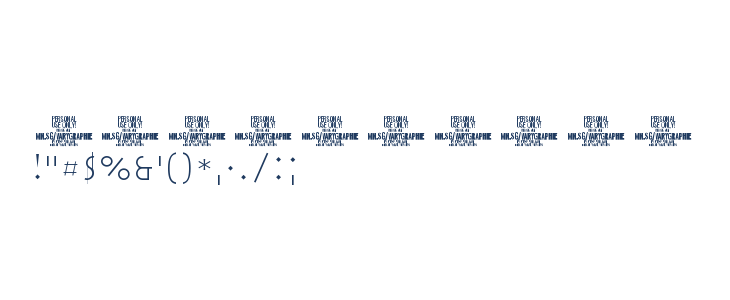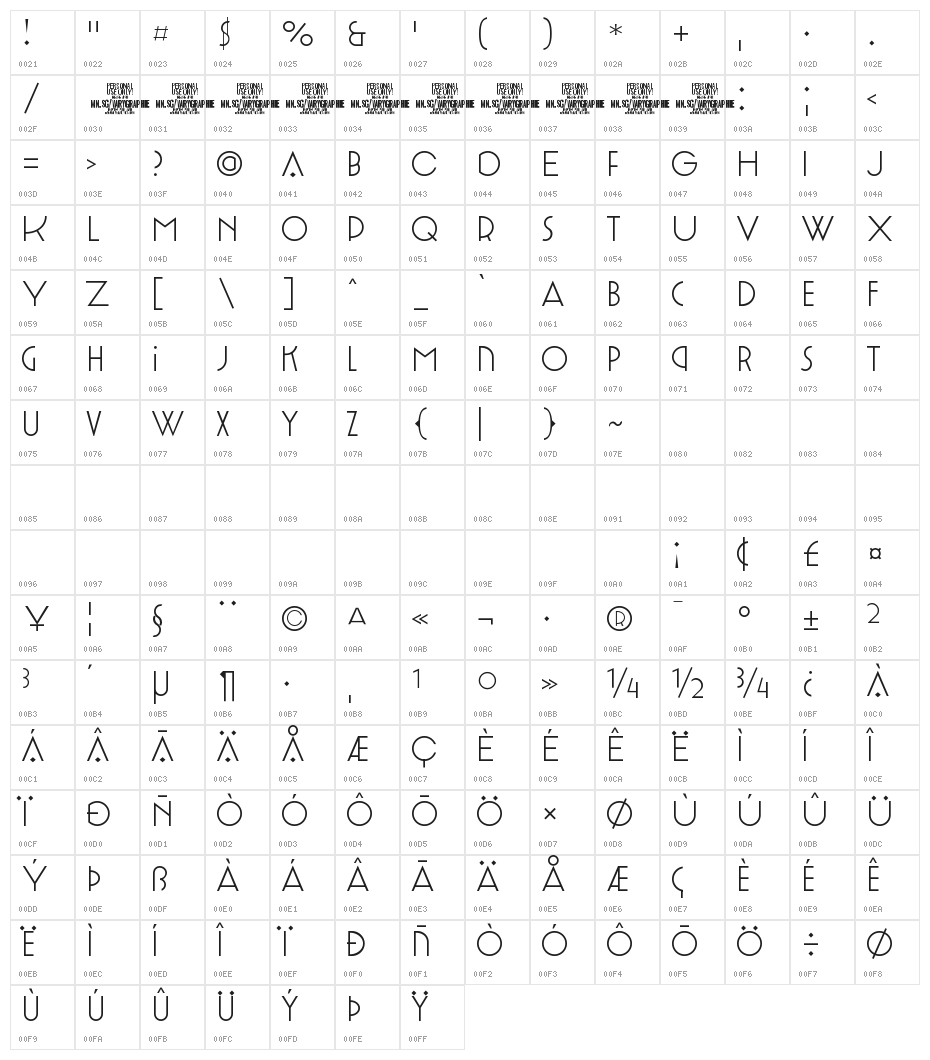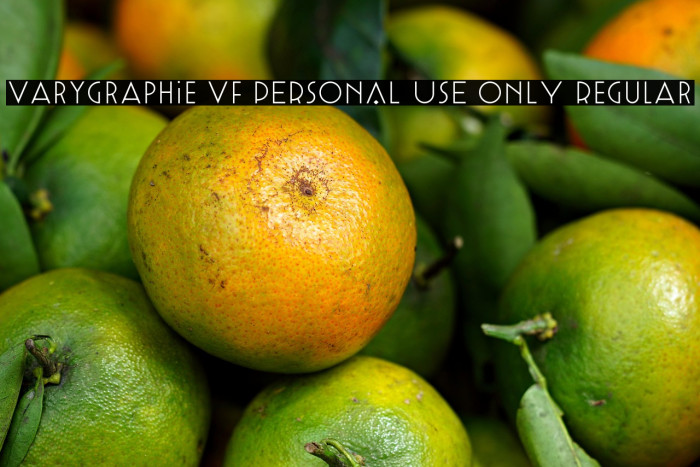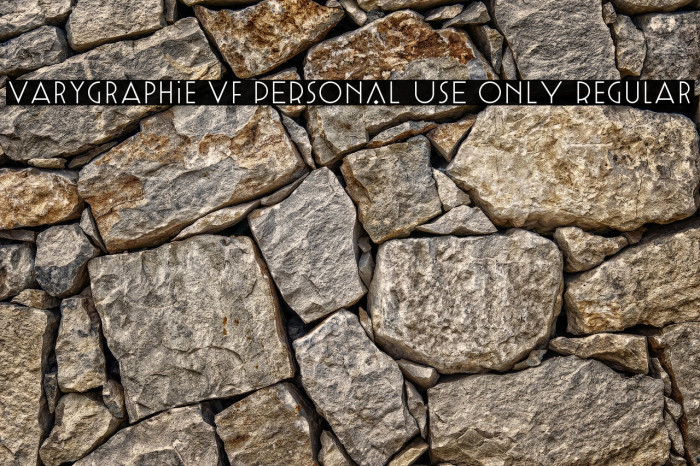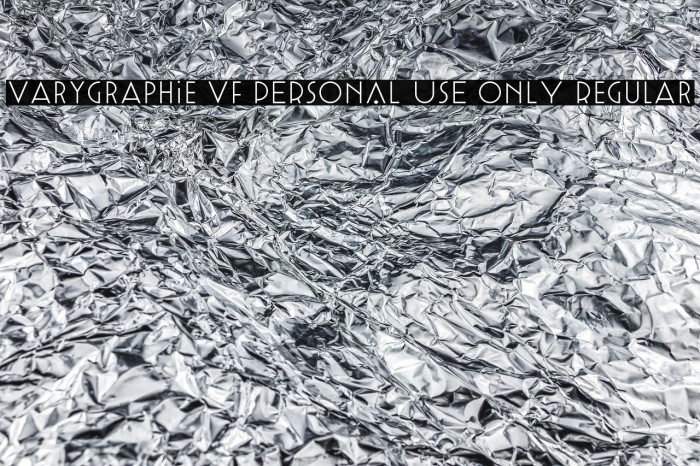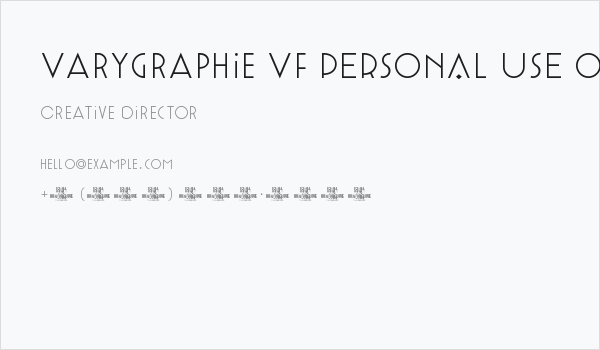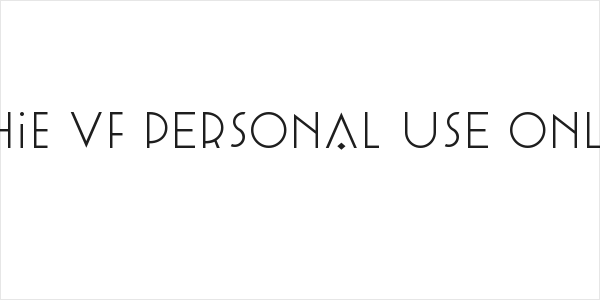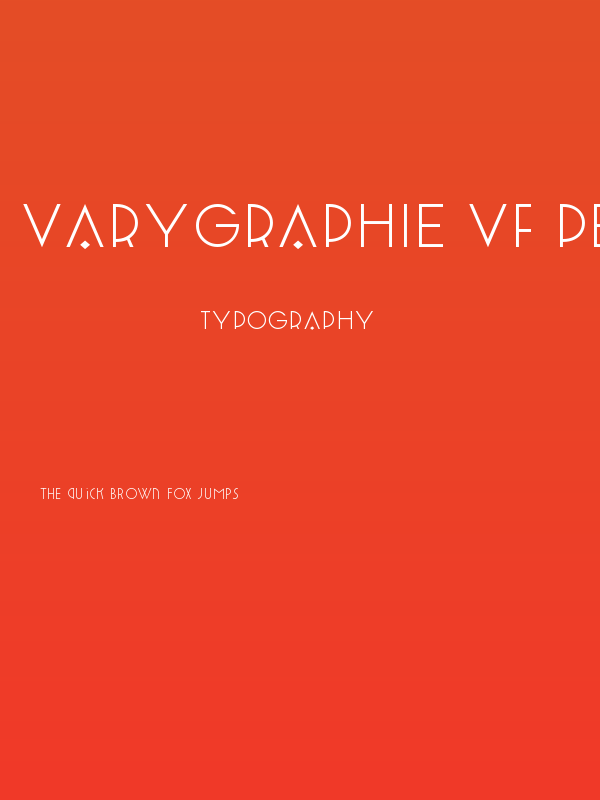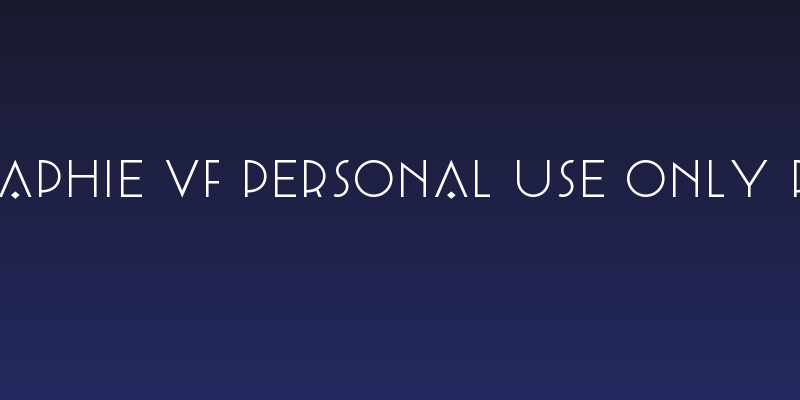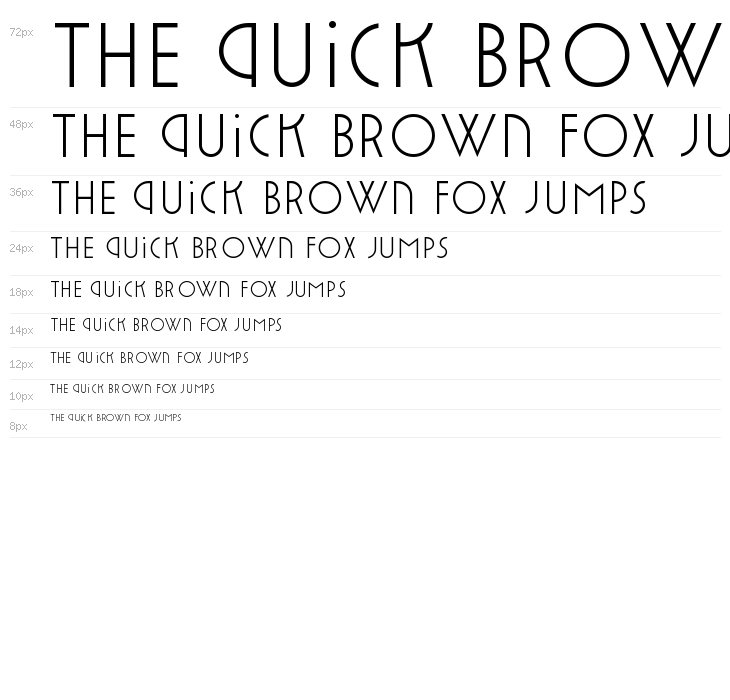
Varygraphie VF PERSONAL USE ONLY Regular Font
Varygraphie VF PERSONAL USE ONLY Regular Description
This font features a sleek, geometric design with a modern aesthetic. The characters are crafted with clean lines and a minimalistic approach, giving it a futuristic feel. The uppercase letters exhibit a unique blend of sharp angles and smooth curves, while the lowercase letters maintain a consistent style with slightly more rounded forms. The numerals and special characters are designed to complement the overall look, ensuring a cohesive appearance across all text. This font's distinct style makes it suitable for creative and contemporary projects.
| Use Case | Logos, Headlines, Digital Media |
| Proposed Projects | Ideal for branding, advertising, digital media, and modern web design. |